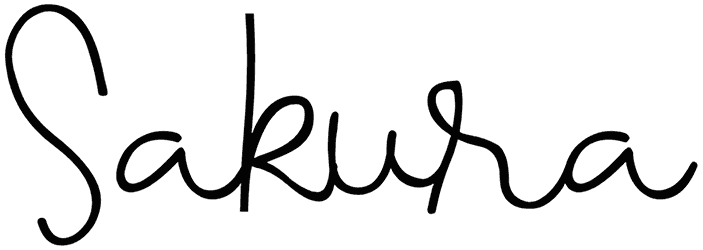
Sakura Font
Funny, connected, and thin, Sakura is a handwritten font for those projects where you want to show a friendly and casual touch. It seems illegible, but don’t worry because it comes with a full set of characters that you…
Funny, connected, and thin, Sakura is a handwritten font for those projects where you want to show a friendly and casual touch. It seems illegible, but don’t worry because it comes with a full set of characters that you may need.
This neon font can be used for birthday parties, children’s books, personalized gift cards, cartoon titles, and other designs that need a natural hand-drawn feel.